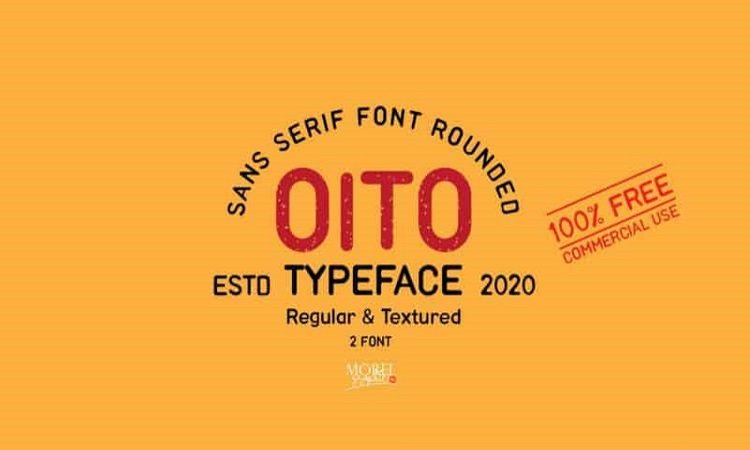
Oito Display Font Family
Oito Display Font Family is a vintage styled display typeface. Simple, playful and natural, comes with 2 styles. Made from font designer named Morel Graphic. A free sans serif typeface in Regular and Textured styles with a vintage feel. Oito is ideal for logos, badges, posters and other vintage projects.